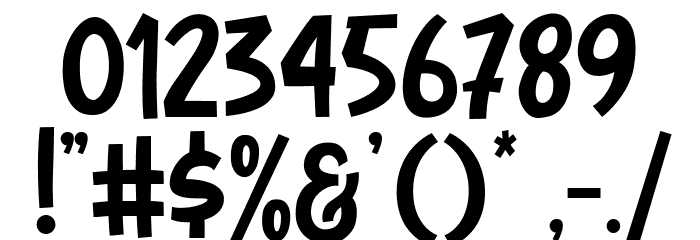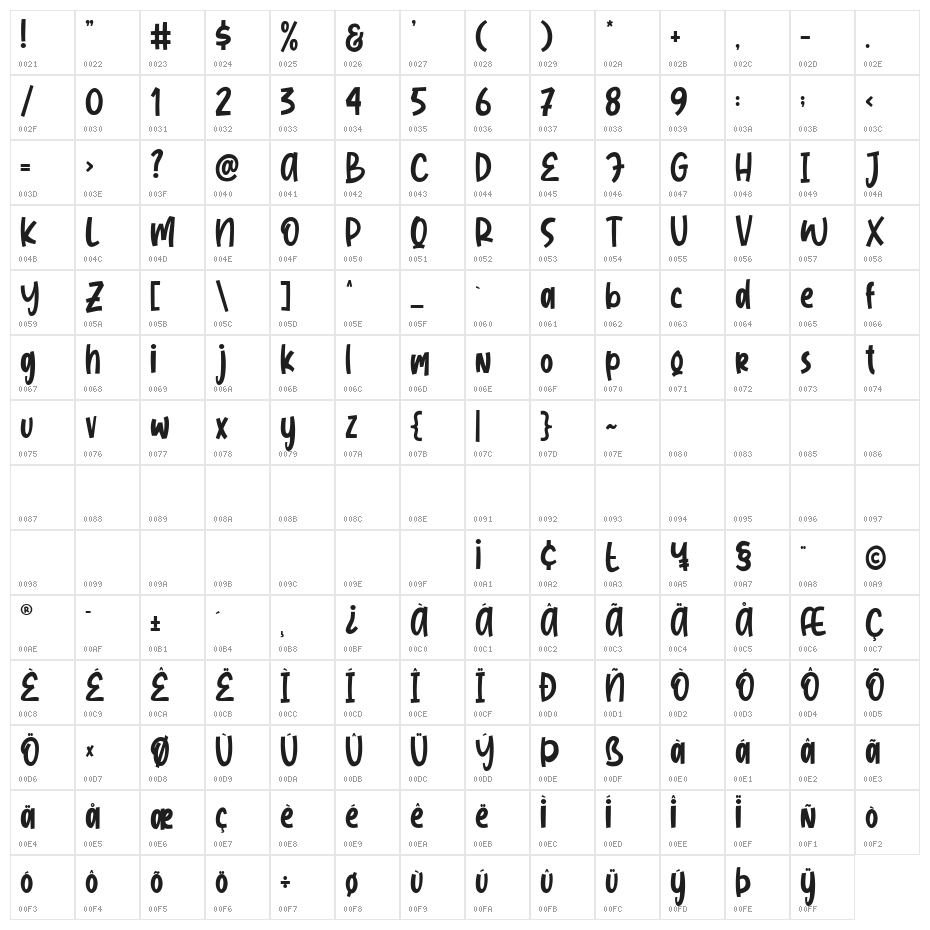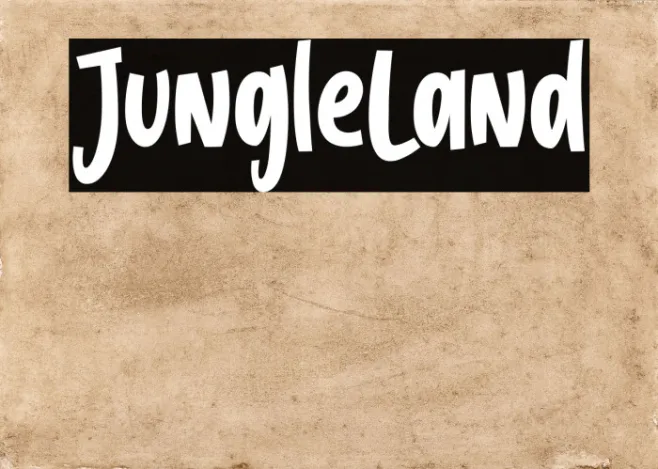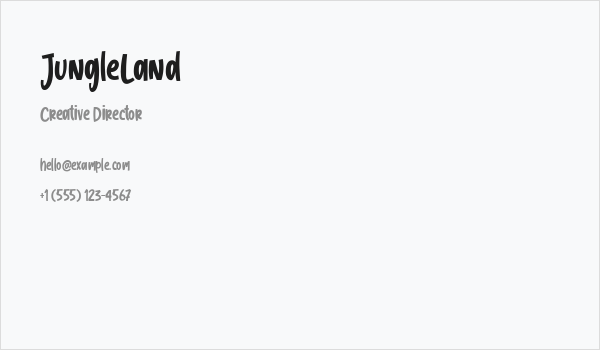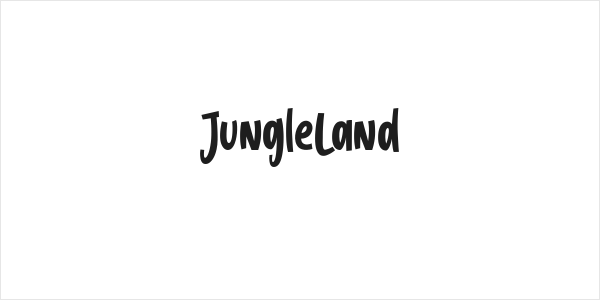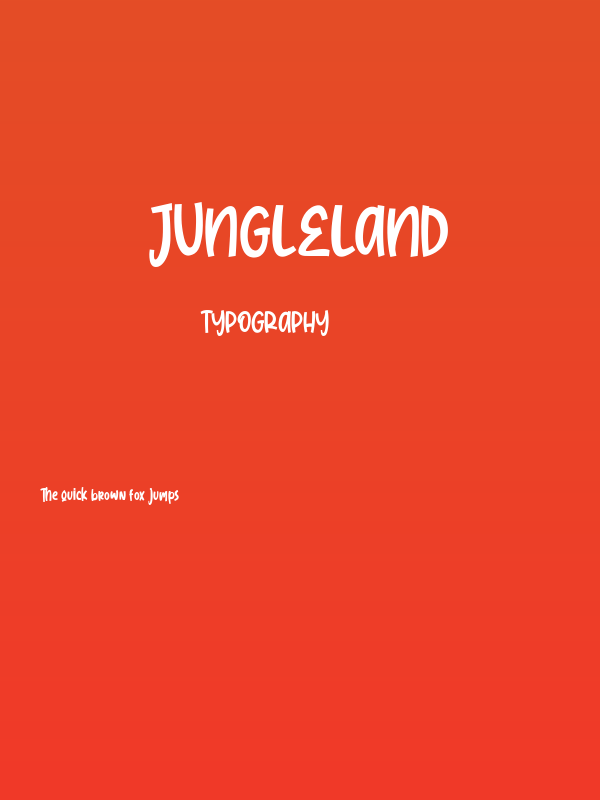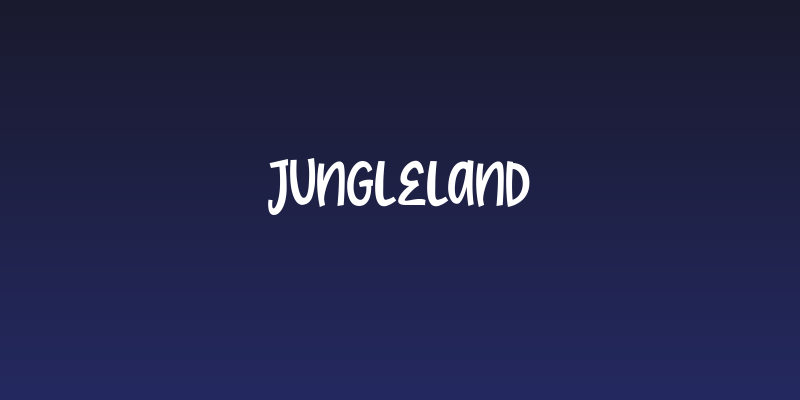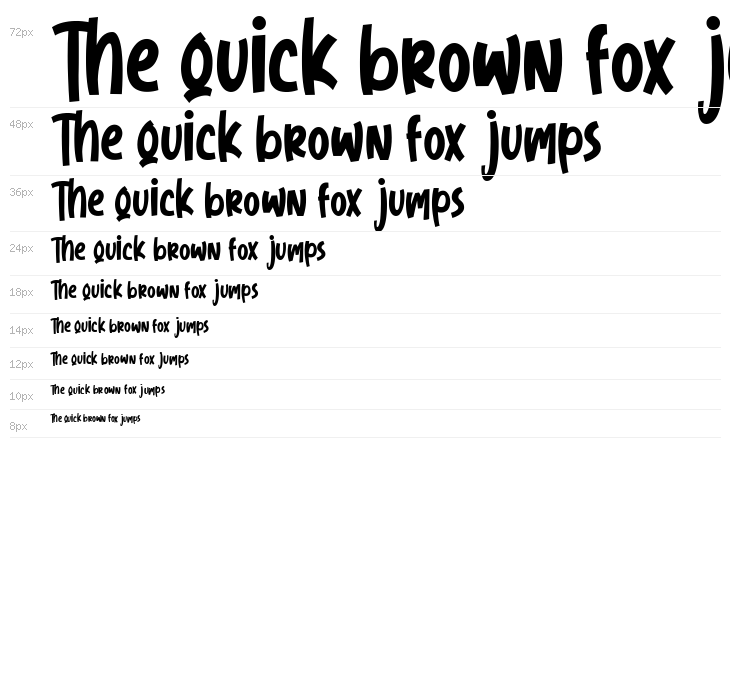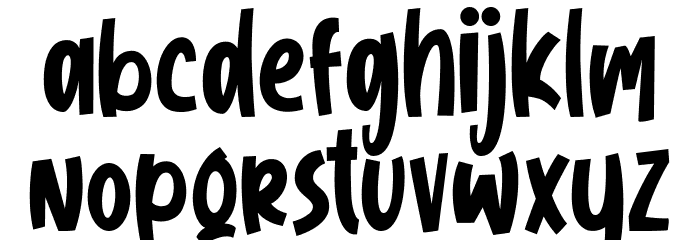
JungleLand Font
JungleLand Description
This font features a playful and bold style with a hand-drawn appearance. The letters are slightly irregular, adding a whimsical and casual feel. The uppercase and lowercase characters maintain a consistent style, with rounded edges and a lively bounce. The numbers and special characters follow the same energetic design, making the font suitable for creative and informal projects. Its unique character shapes and dynamic flow make it stand out, perfect for designs that require a fun and engaging look.
| Proposed Projects | Ideal for children's books, playful branding, posters, and creative invitations. |